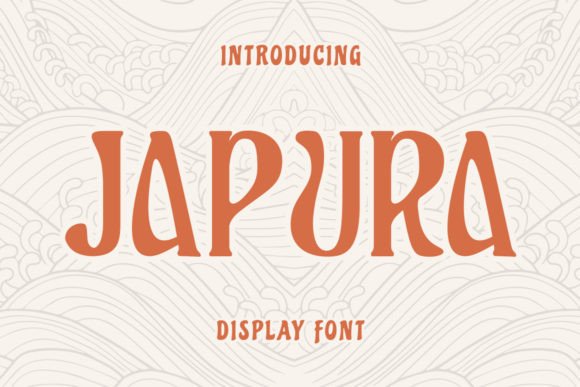
Unleash the power of Japura, a revolutionary display typeface that ignites the senses and captivates the imagination. With its classic, fun, and trendy aura, Japura is the ultimate font for expressing love, passion, and heartfelt emotions.
Immerse yourself in the world of Japura, where every letter is a stroke of brilliance, every word a symphony of emotions. Let your creativity soar as you explore the endless possibilities of this remarkable font, designed to elevate your designs to new heights.
With Japura, you'll find a touch of elegance, a hint of playfulness, and an undeniable sense of style. Whether you're crafting love poems that set hearts aflame, designing posters that demand attention, or creating logos that leave a lasting impression, Japura is your perfect companion.
Unlike ordinary fonts that blend into the background, Japura commands attention, demanding to be seen and appreciated. Its distinct letterforms, meticulously crafted with precision, ensure that your message stands out from the crowd.
Whether you're a seasoned designer or just starting your creative journey, Japura is the font that will ignite your passion and fuel your imagination. Embrace the beauty of self-expression and let Japura transform your words into works of art.
So, dive into the world of Japura today and discover the limitless creative possibilities that await you. Experience the magic of a font that speaks to the heart and sets your designs apart from the ordinary.